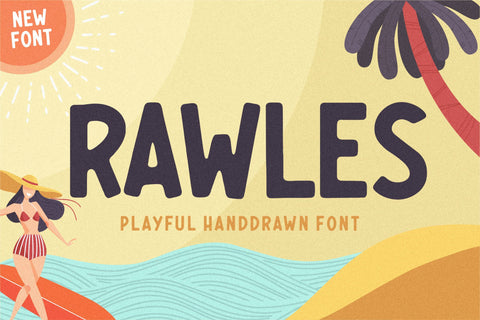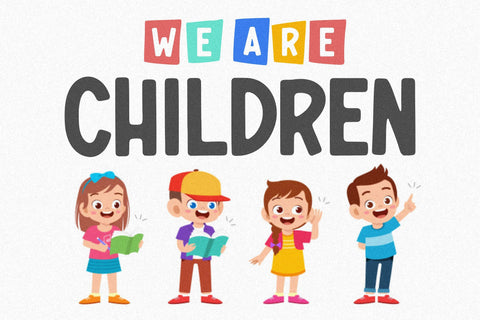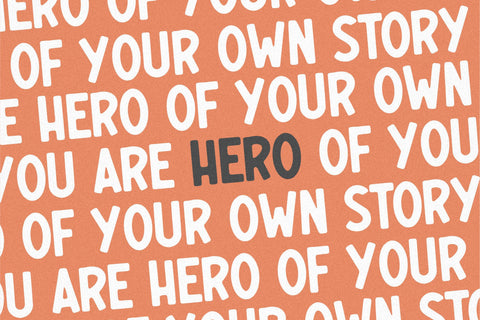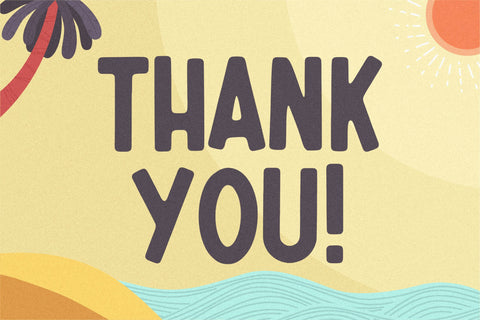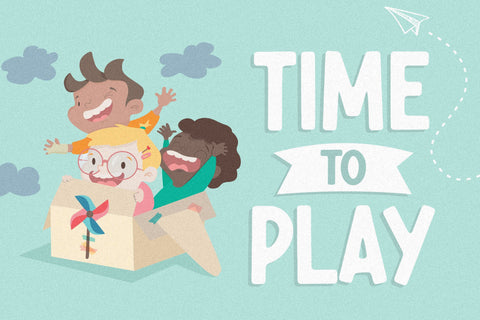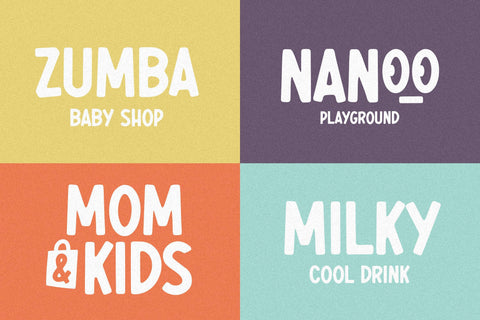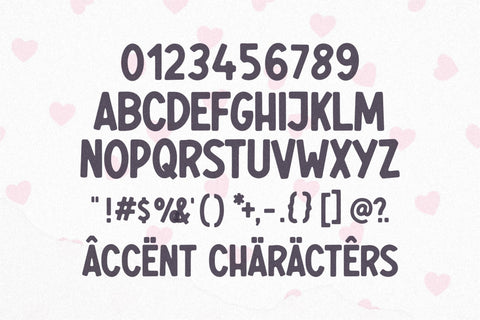
RAWLES Playful Handdrawn Font
Proudly Present, RAWLES Font.
RAWLES is a Playful Handdrawn Font.
RAWLES is perfect for product packaging, branding project, megazine, social media, wedding, or just used to express words above the background.